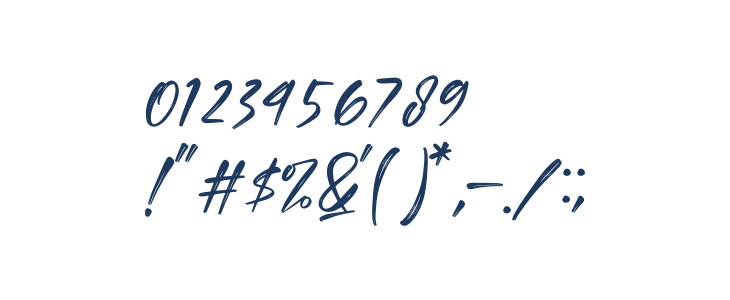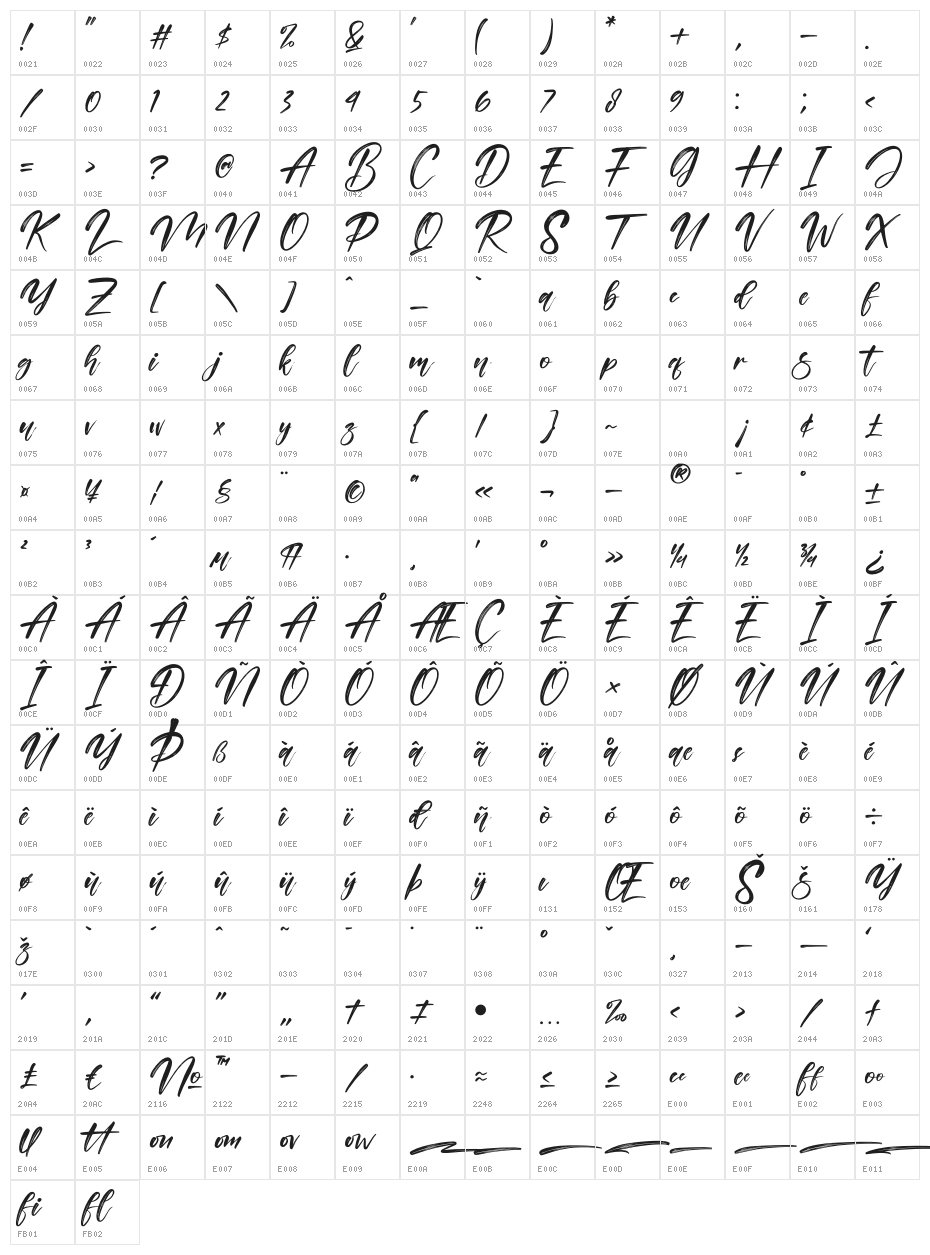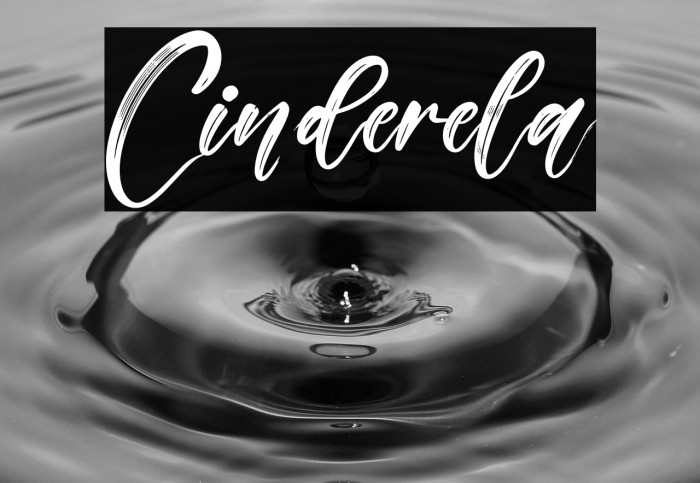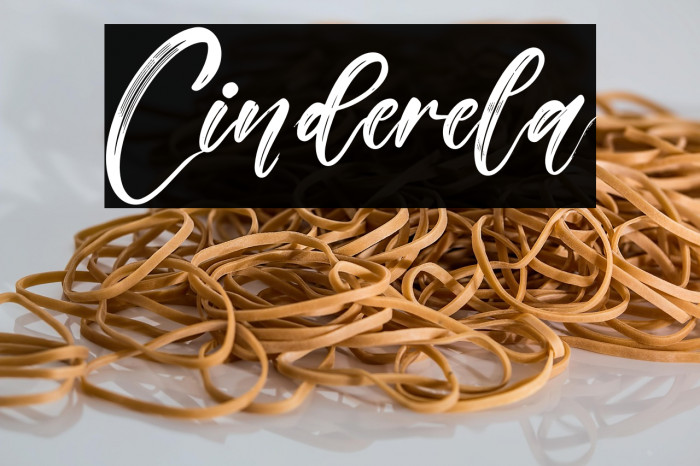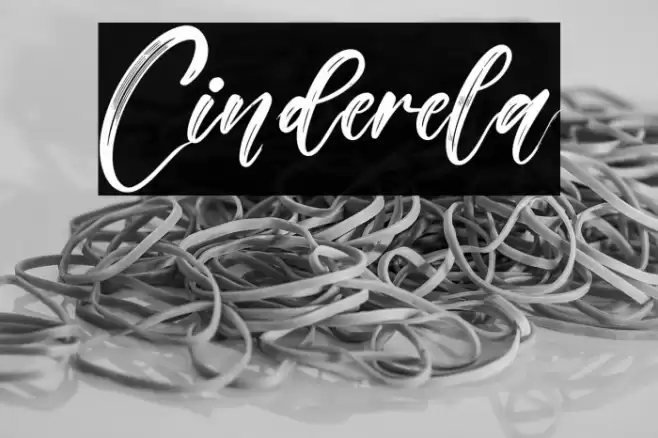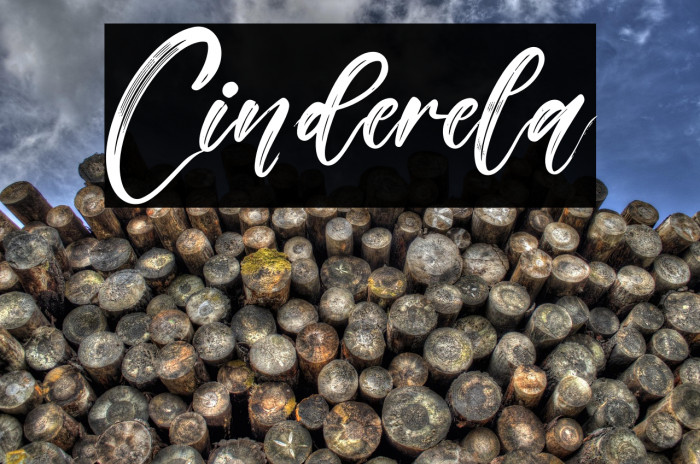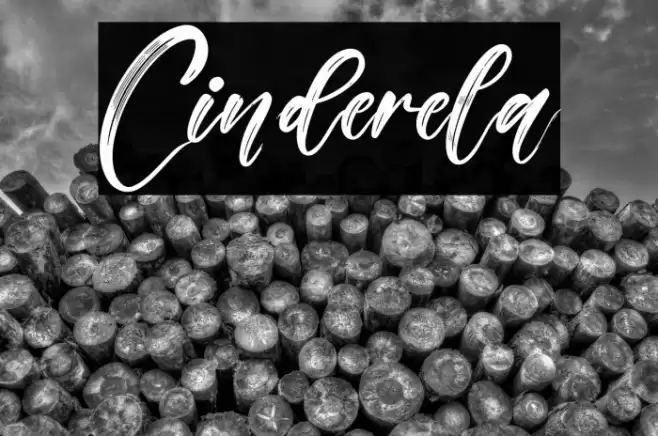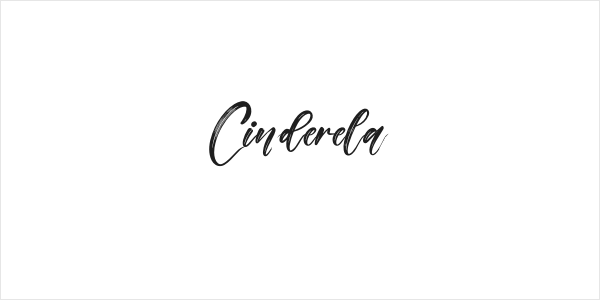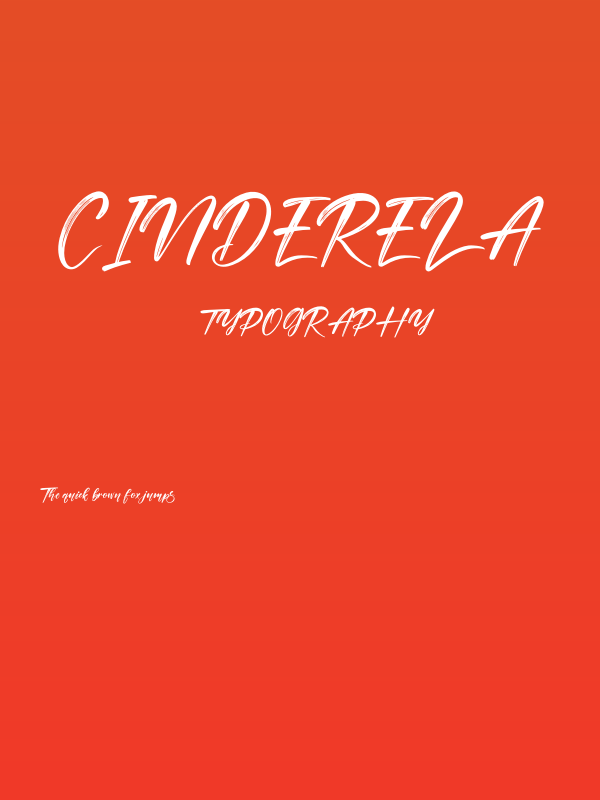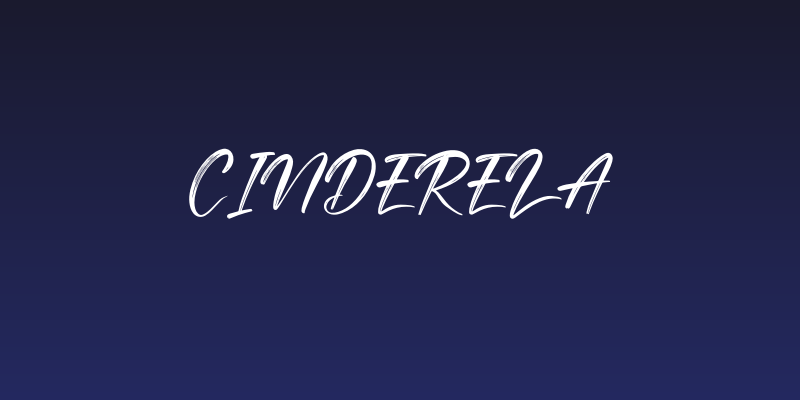
Cinderela Font
Cinderela Description
This font features a bold and expressive script style, characterized by its fluid and dynamic strokes. The letters are interconnected, giving a sense of continuity and flow, reminiscent of elegant handwriting. The uppercase letters are slightly more ornate, with flourishes that add a touch of sophistication. The lowercase letters maintain a consistent style, complementing the uppercase with their smooth curves and loops. Numbers and special characters are designed to match the overall aesthetic, ensuring a cohesive look across all text. The font's boldness and artistic flair make it suitable for creative and decorative applications.
| Proposed Projects | Ideal for wedding invitations, branding, logos, and artistic projects requiring a personal touch. |